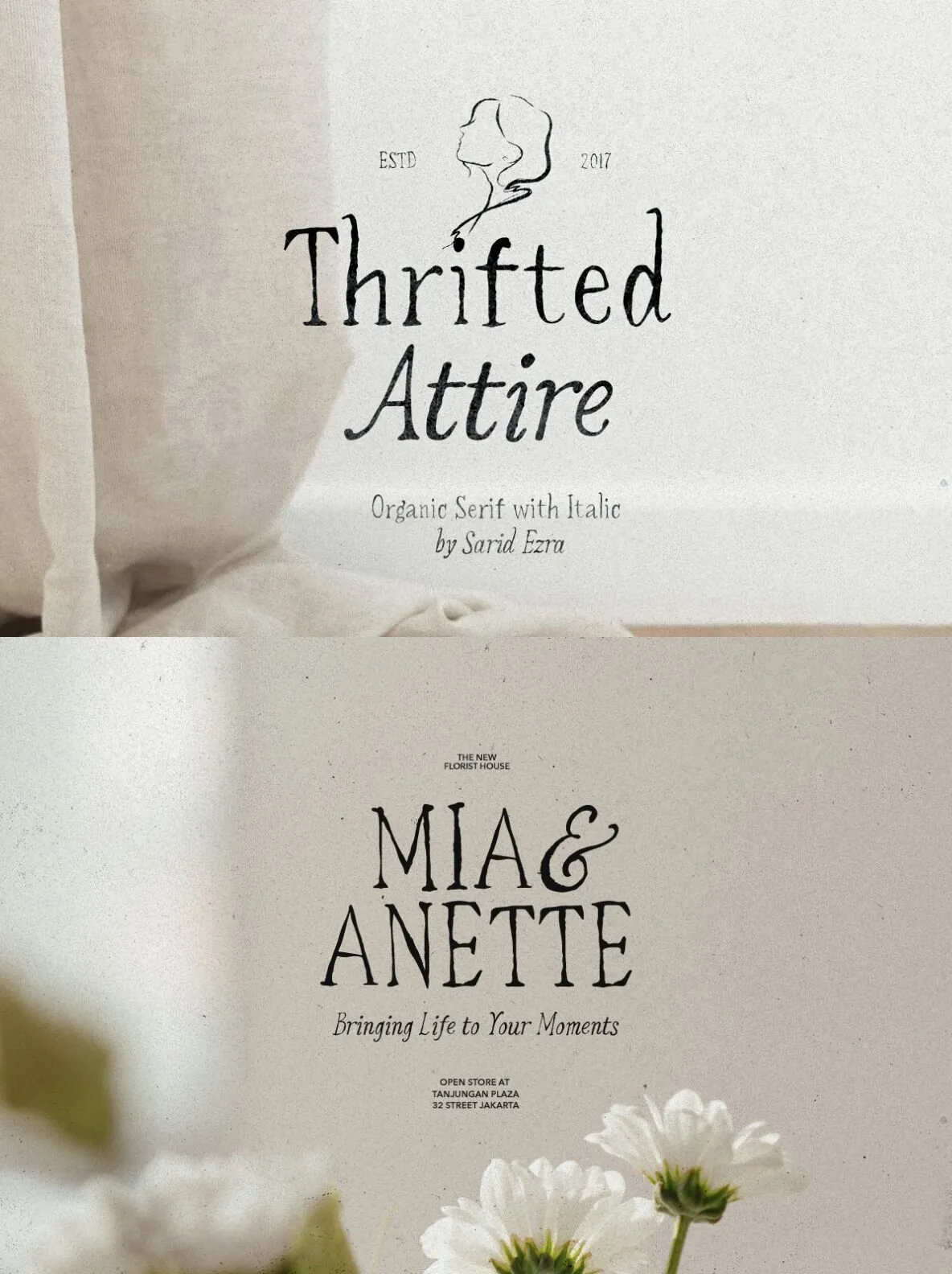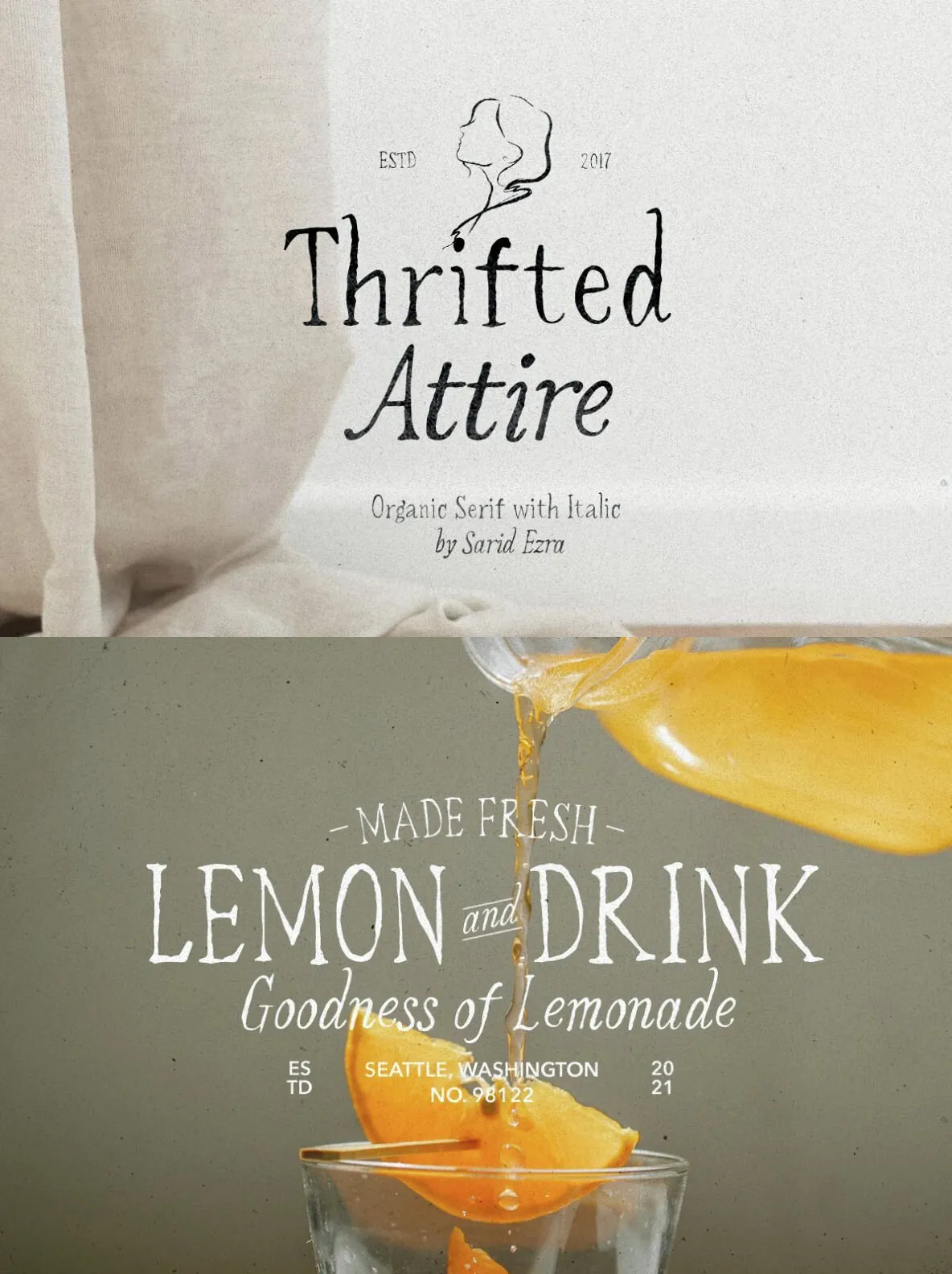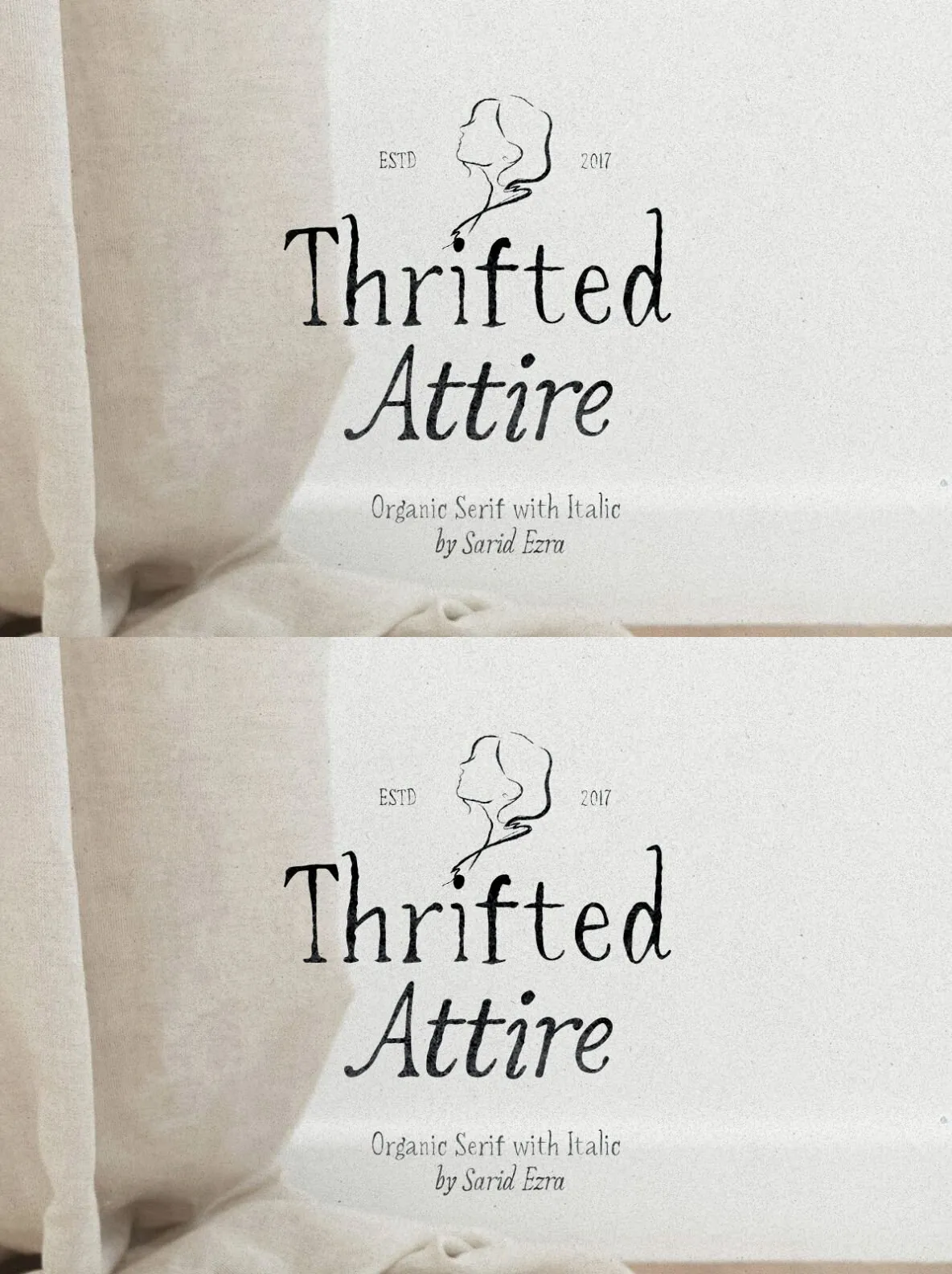
Thrifted Attire — Handmade serif with warmth
A serif family with a natural, handmade look, designed by Sarid Ezra. It includes regular and italic versions, so you can mix styles within a sentence for more nuanced typography—especially in quotes and short editorial lines. The letterforms keep a human feel while staying readable across common layout needs.
Use it for logotype work, wedding invitations, and any project that calls for a natural look. Thrifted Attire also supports multiple languages, making it a practical choice for branding and print pieces that need consistent character across different audiences.